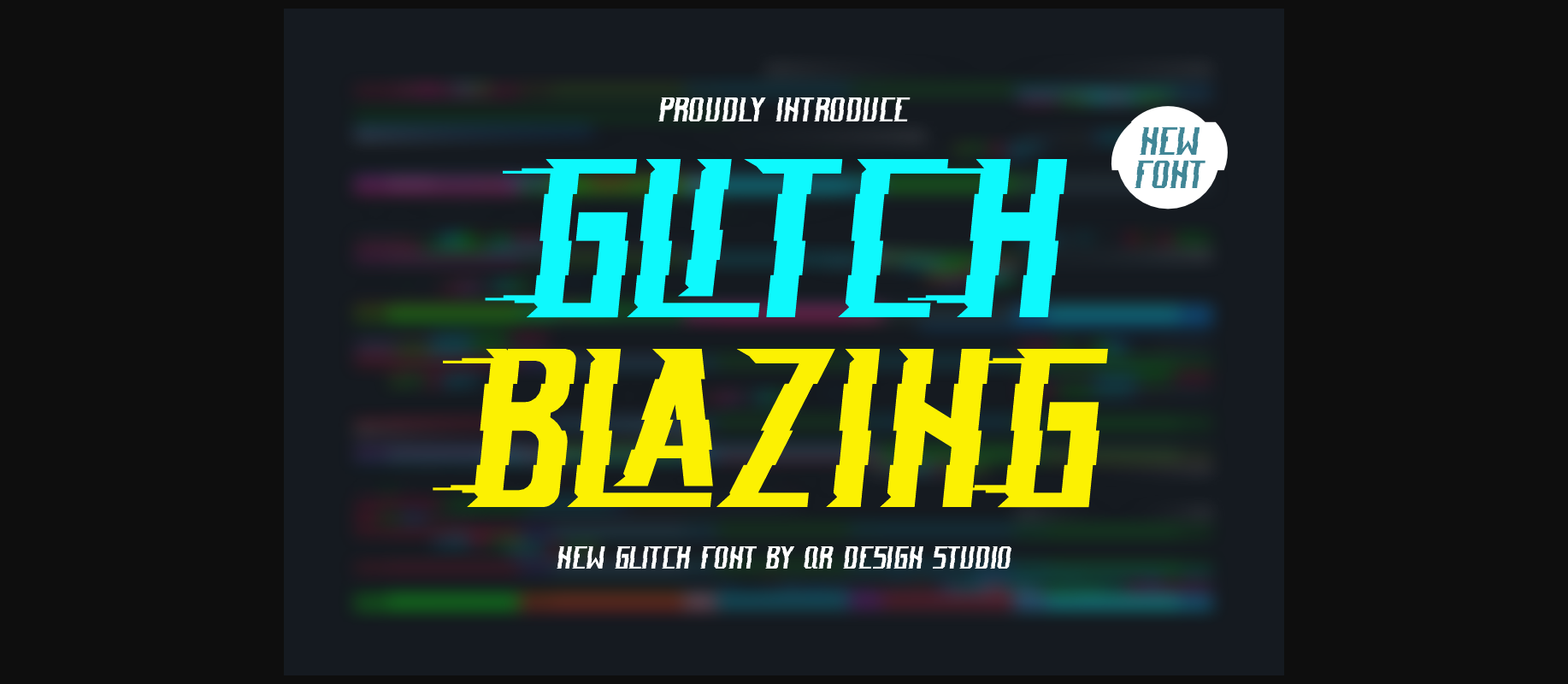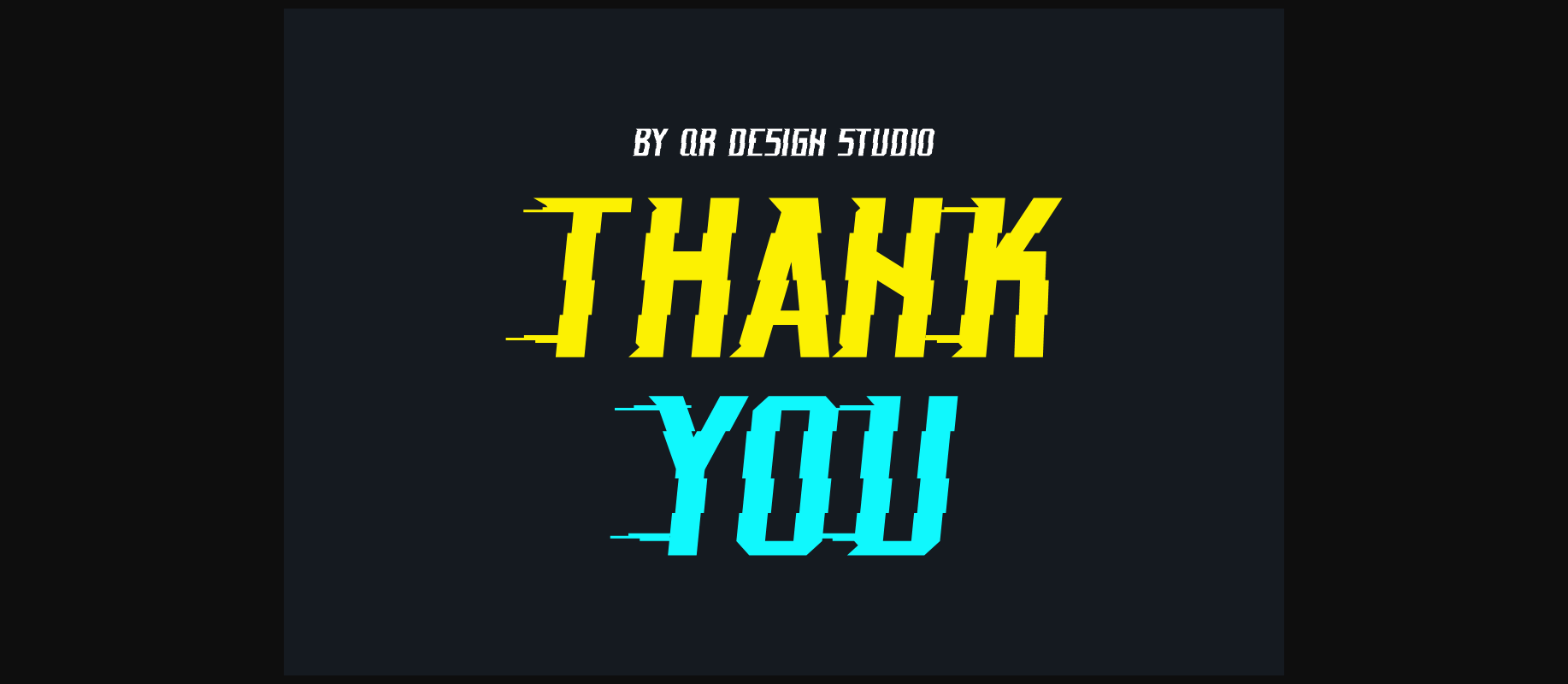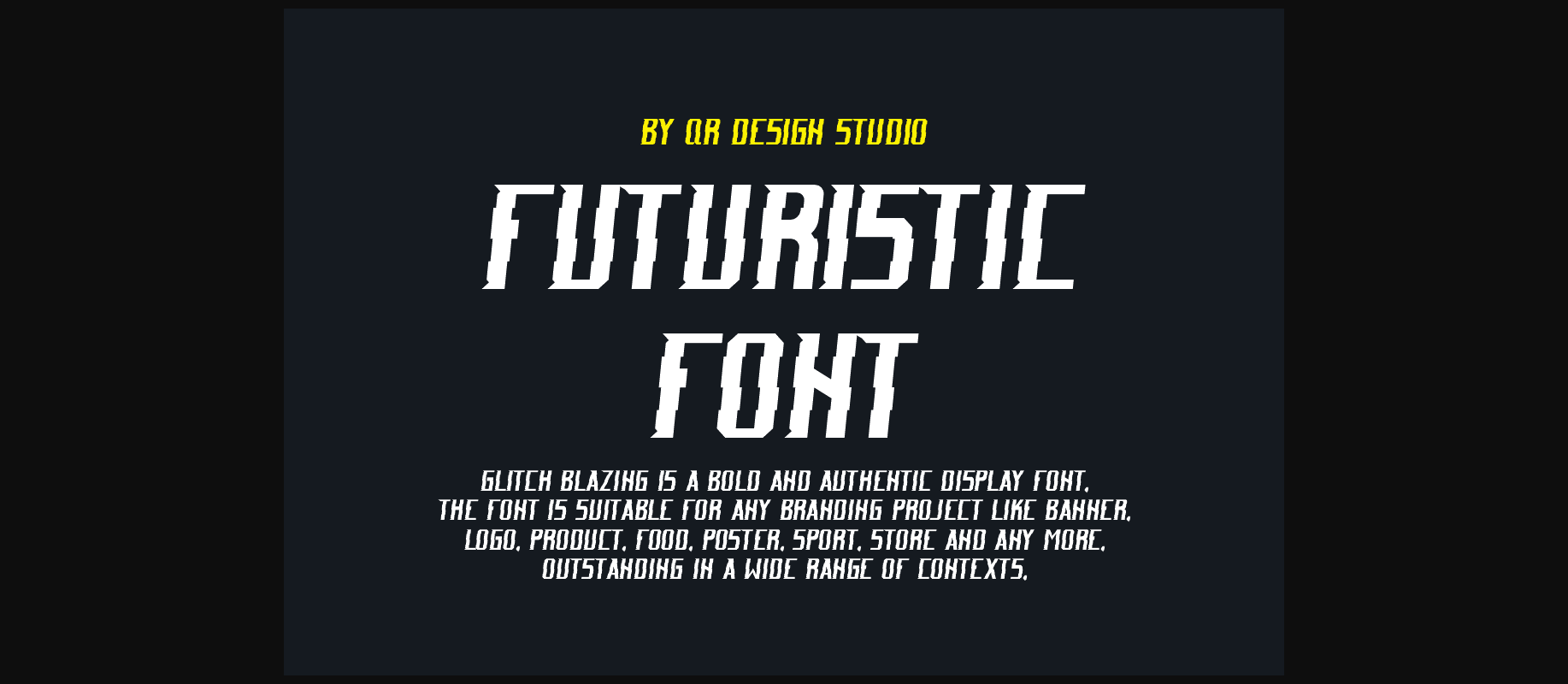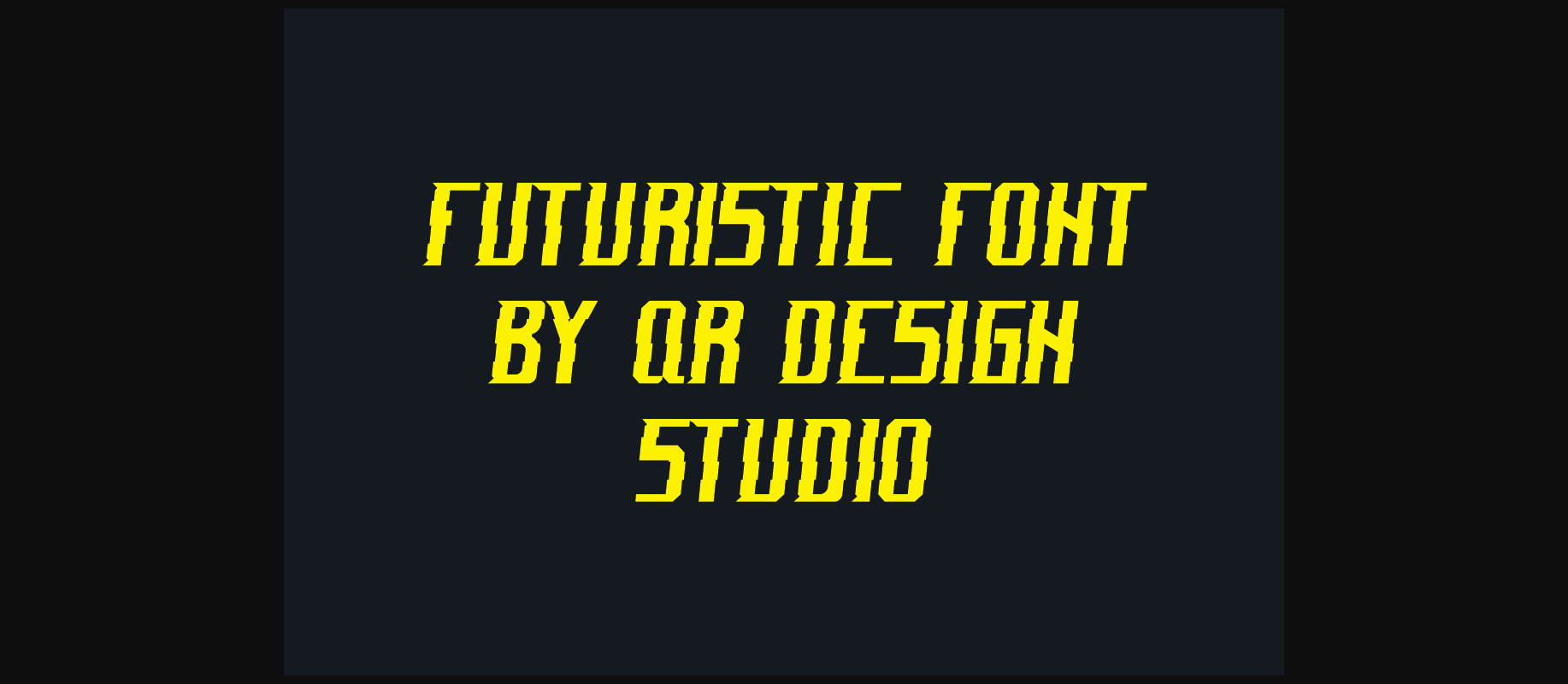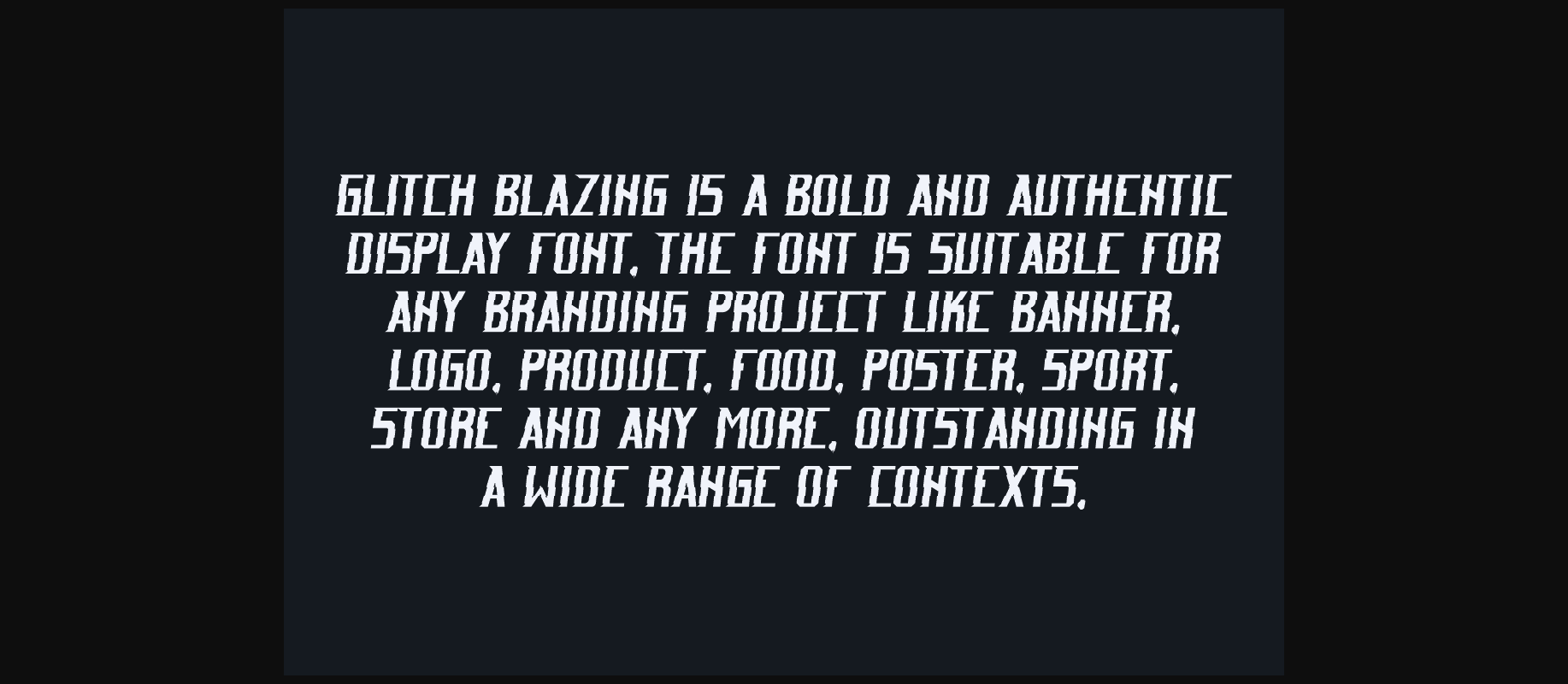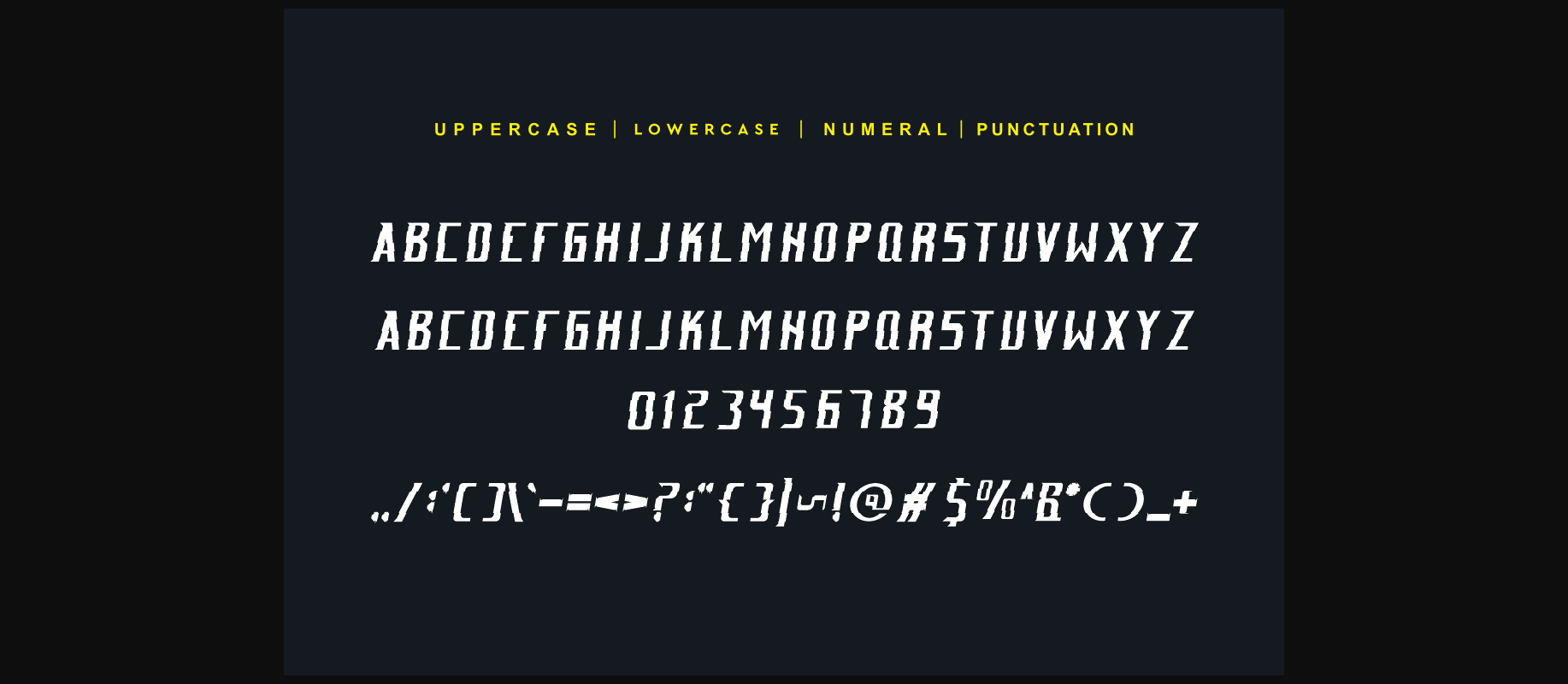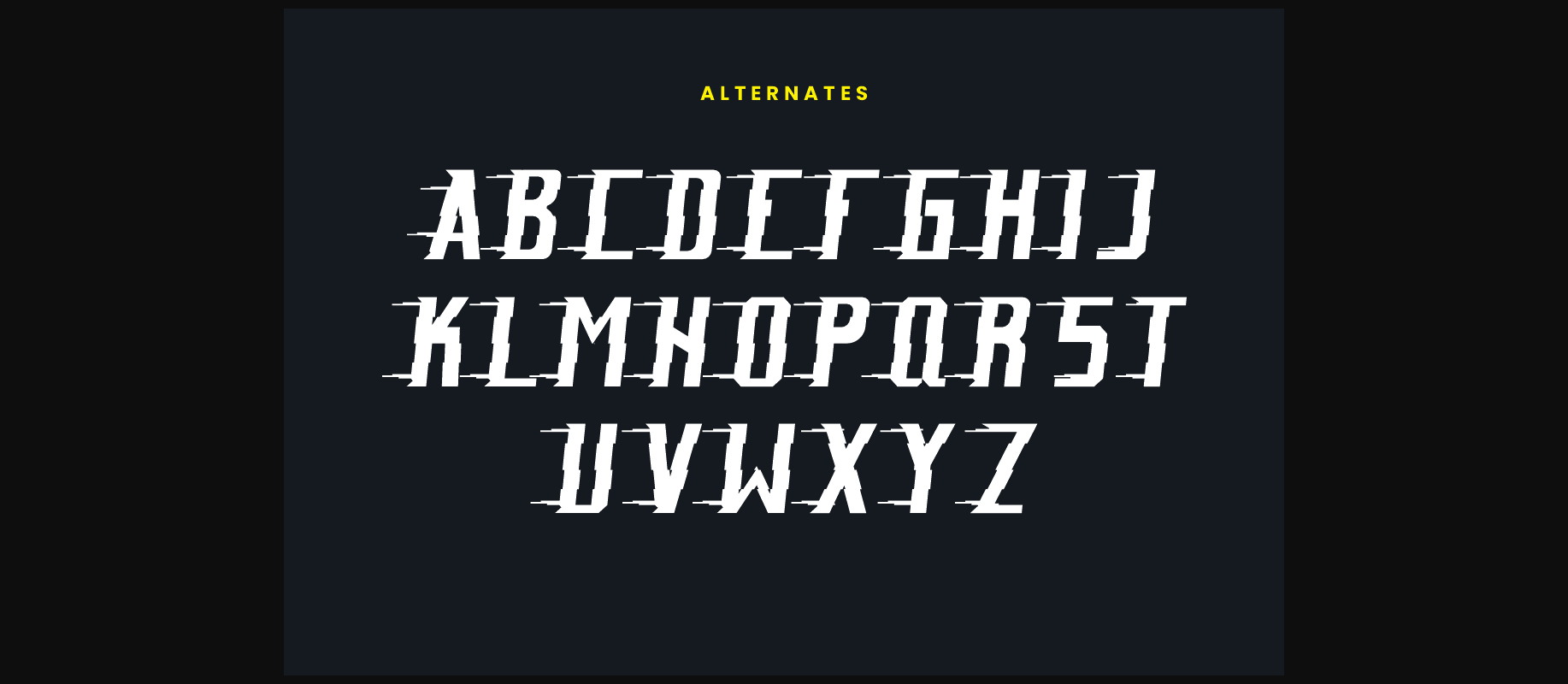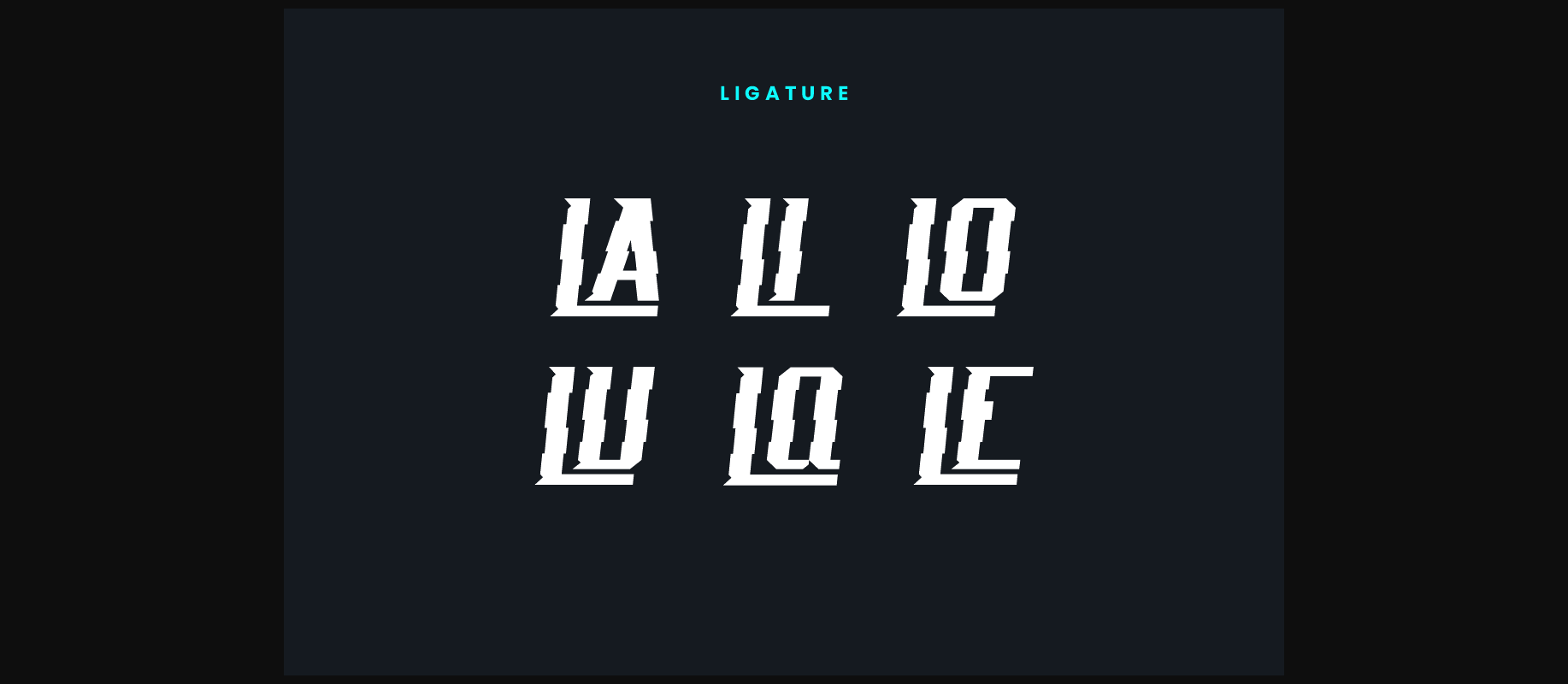
About Glitch Blazing Font
Glitch Blazing is a bold and edgy font that brings a touch of digital rebellion to your text. With a glitchy twist, each character pulsates with a dynamic energy, adding a futuristic and tech-inspired vibe to your designs. Perfect for projects that demand a cutting-edge, unconventional look, Glitch Blazing is your go-to font for making a statement. Embrace the digital chaos and infuse your text with a burst of glitchy creativity.